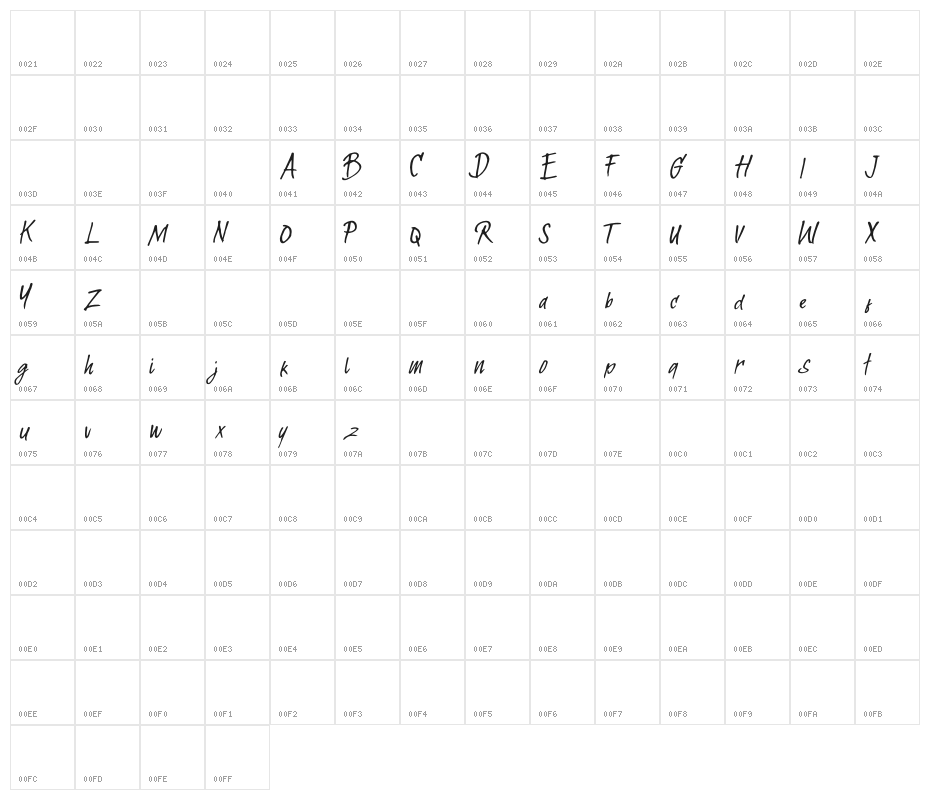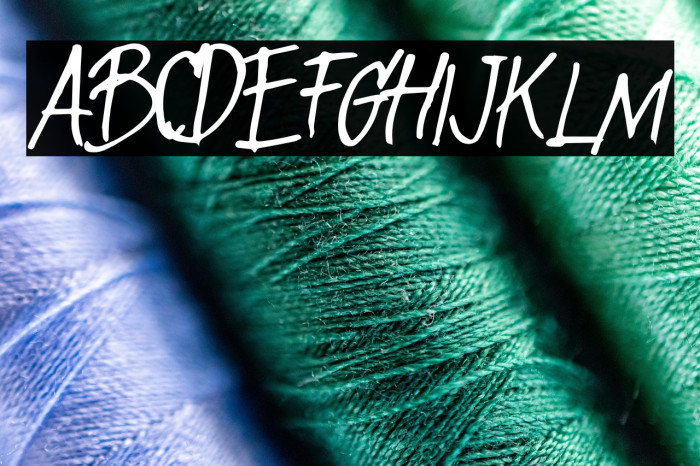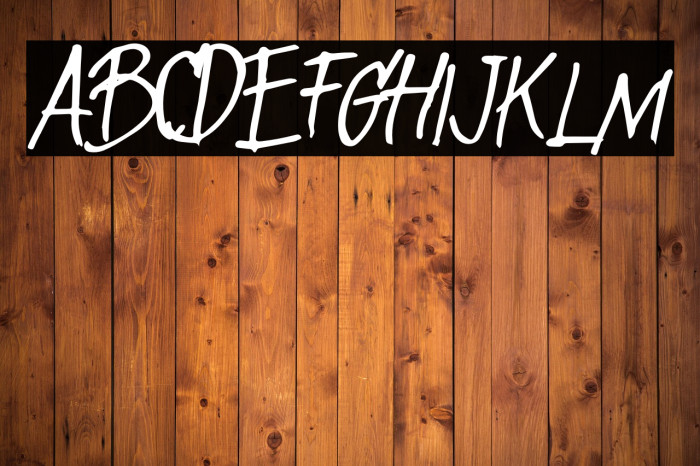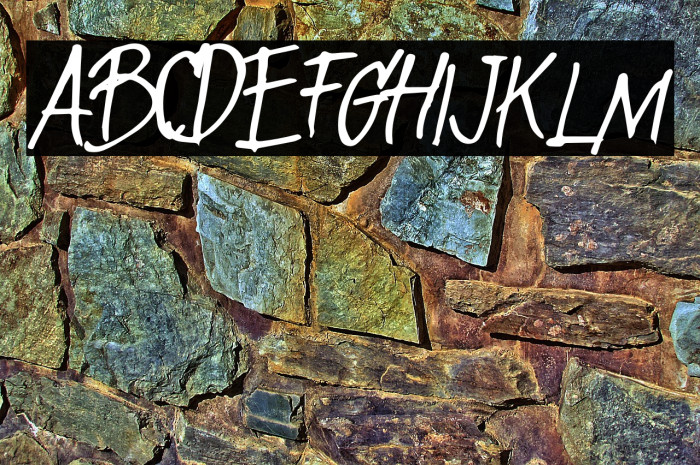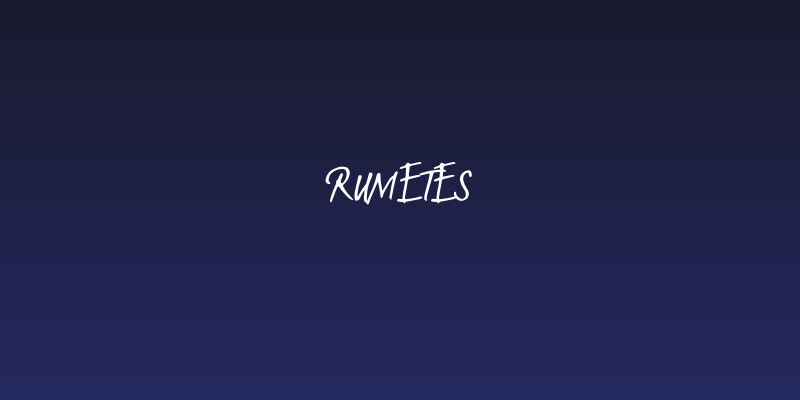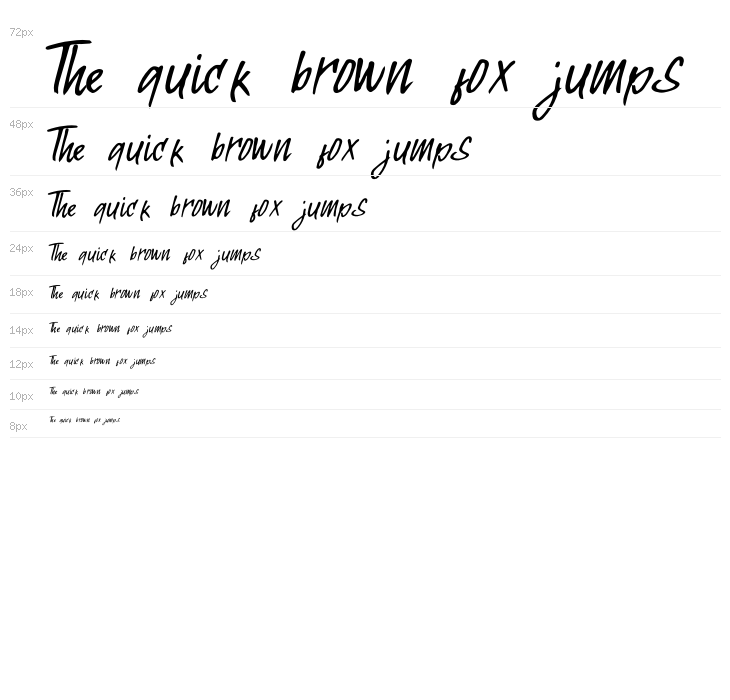
Rumetes Font
Rumetes Description
This font exudes a dynamic and expressive handwritten style, characterized by its fluid and organic strokes. The letters are slightly slanted, giving a sense of motion and energy. The uppercase letters are bold and prominent, while the lowercase letters maintain a consistent flow, enhancing readability. The font's playful nature is evident in its varied stroke thickness, which adds a touch of spontaneity and creativity. This style is perfect for projects that require a personal and informal touch, such as invitations, greeting cards, or artistic branding. Its unique character makes it stand out, offering a fresh and lively appearance.
| Proposed Projects | Ideal for invitations, greeting cards, artistic branding, and creative projects. |